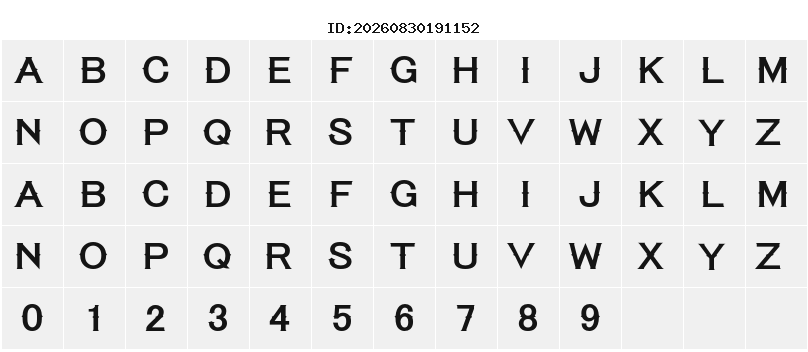
Tequila Sunrise Preview
• Font Name: Tequila Sunrise
• Designer: Chris Vile
• Manufacturer: Font Monger
• Description: Tequila Sunrise Regular is a font by Font Monger, designed by Chris Vile in 2015.
Tequila Sunrise.otf is a modern, elegant sans-serif font designed for ultimate readability and visual harmony. Perfect for branding, headlines, web design, and print materials.